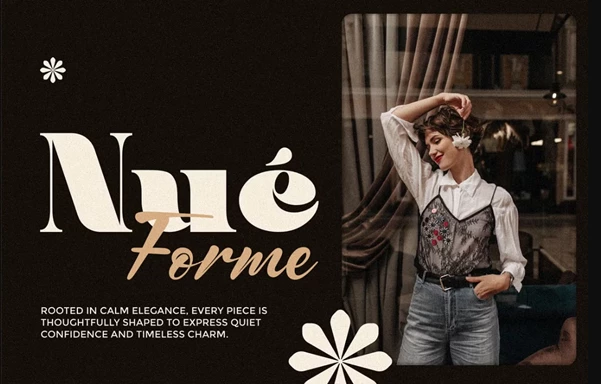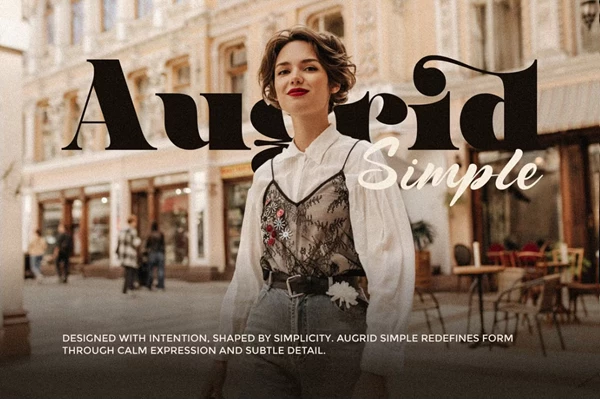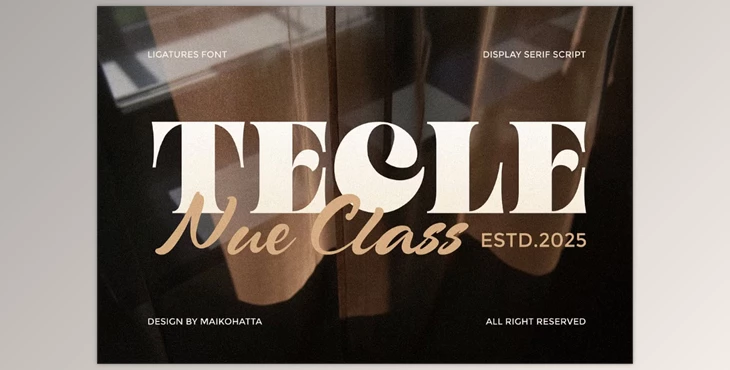
Tecle Font Duo Typeface:
Tecle Font Duo is a fantastic two-font family that gives the designer a special experience by having two fonts to choose from. Tecle is a Serif and Script Font Duo that possesses two uniquely different personalities. Tecle Serif is a modern take on a Silhouette style with high contrast and crisp details, while Tecle Script is smooth and flowing with natural ligatures, making it look like real handwriting.
Thus, Tecle exists in the perfect world where something looks very classic, but at the same time, this family gives the project the look of something that's hand-created. The Serif Script duo is perfect for any project that needs a strong, clean-lined, classic approach with a secondary font that takes the time to give it a personal feel. Installed OTF and TTF. Uppercase and lowercase, multilingual support with ligatures and alternates. Perfect for branding, invitations, logos, or any project.
"Tecle Font Duo Typeface" Samples: